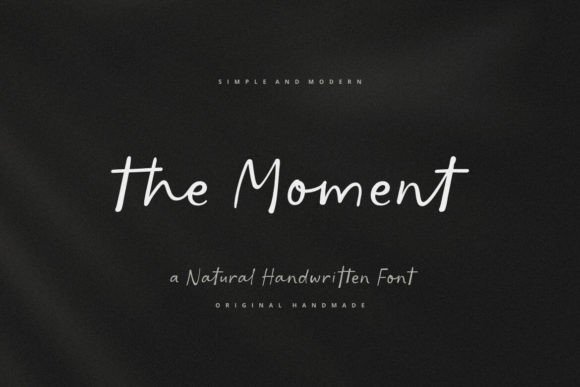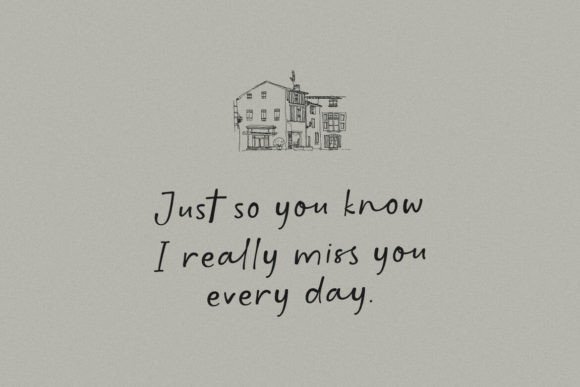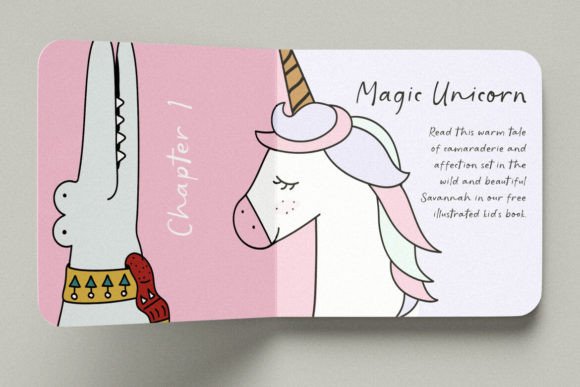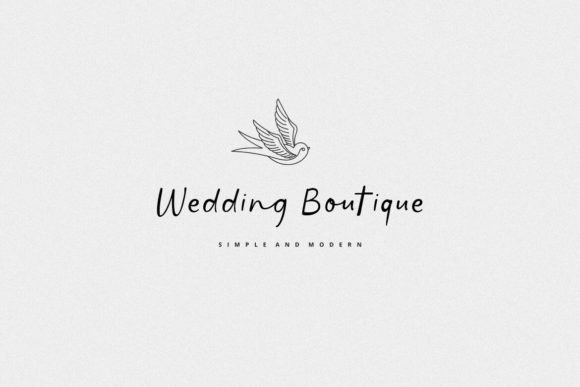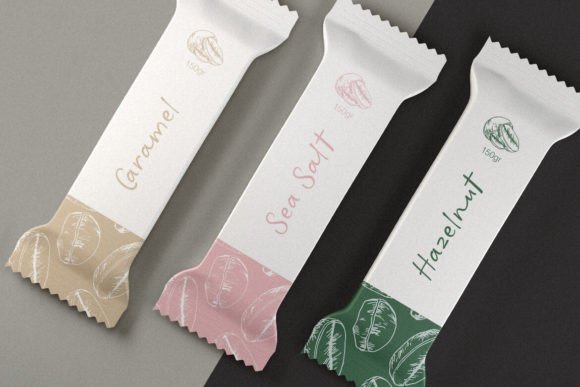
The Moment Font
The Moment Font is a cute and modern handwriting font carefully created with a touch of elegance. Whether you’re looking for fonts for Instagram or calligraphy scripts for DIY projects, this font will turn any creative idea into a true piece of art!